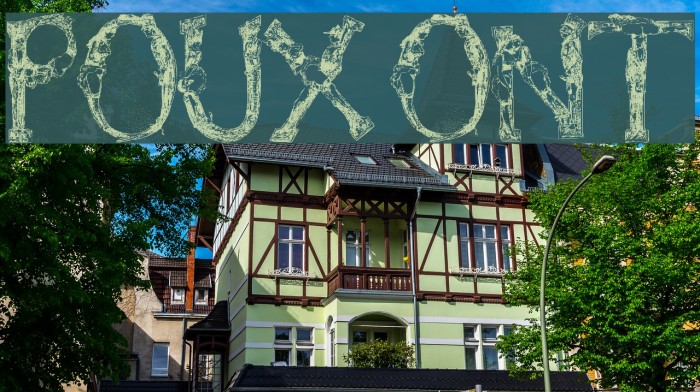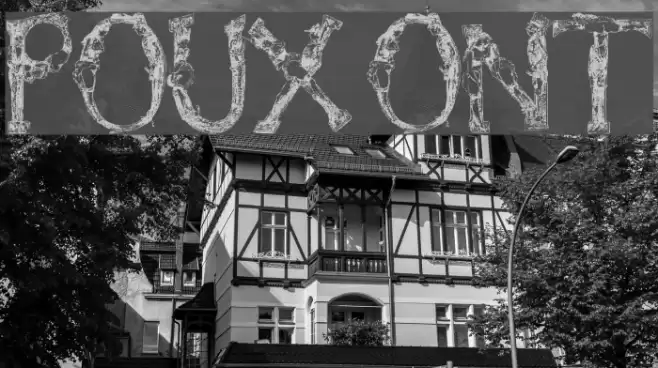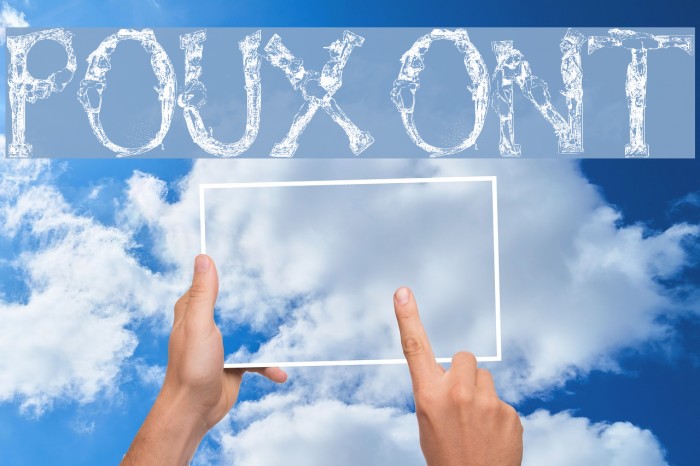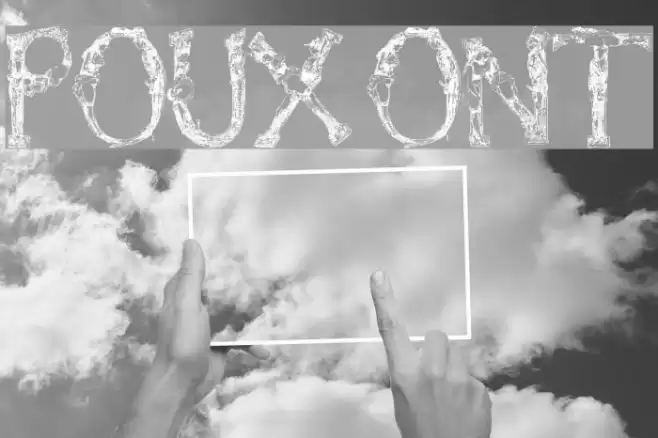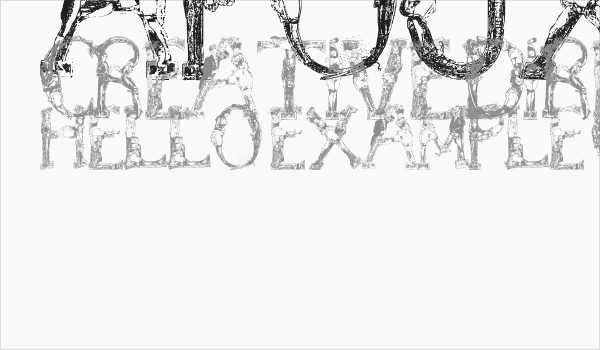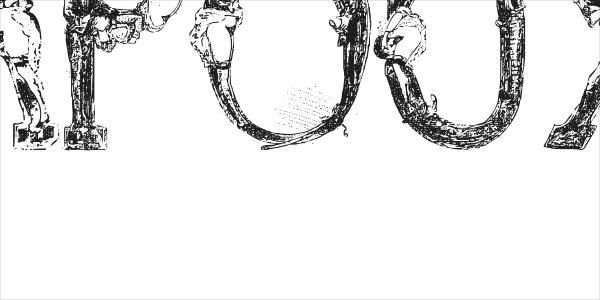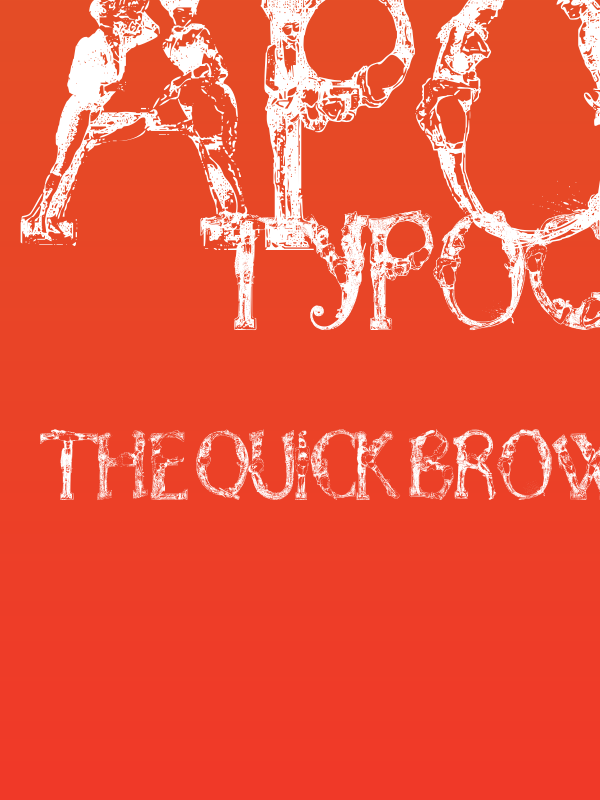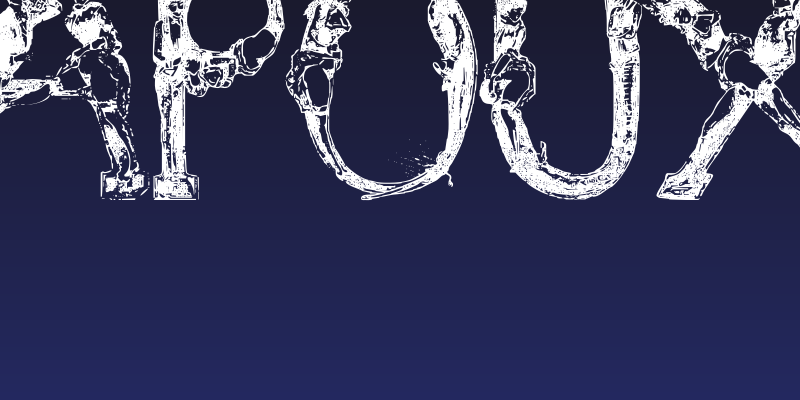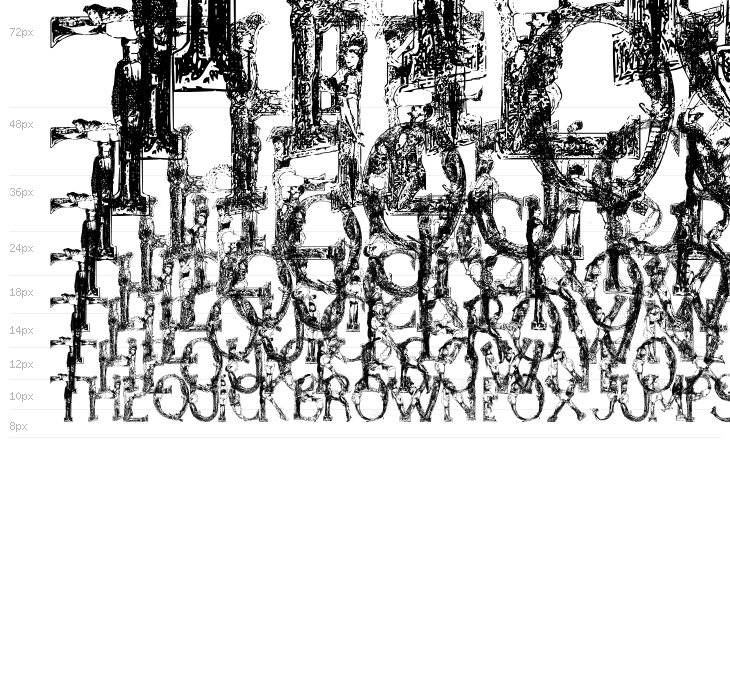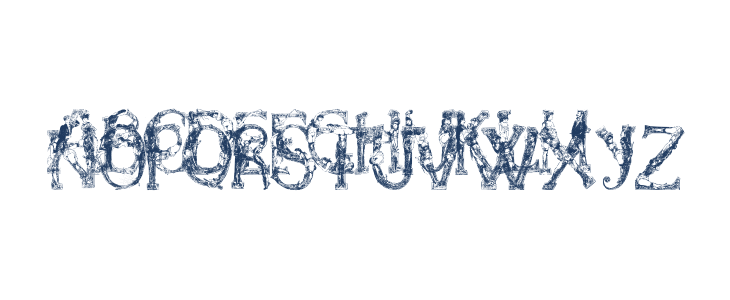
Apoux Font
Apoux Description
This font features a distressed, textured appearance that gives it a rugged and organic feel. Each letter is uniquely crafted with a rough, uneven surface, resembling natural elements like stone or bark. The uppercase letters are bold and prominent, while the lowercase letters maintain the same textured style, creating a cohesive look. The numbers and special characters are designed with the same attention to detail, ensuring consistency throughout the font. This font's distinctive style makes it stand out, perfect for projects that require a touch of nature or a grunge aesthetic.
| Proposed Projects | Ideal for nature-themed designs, outdoor adventure branding, rustic wedding invitations, and artistic posters. |